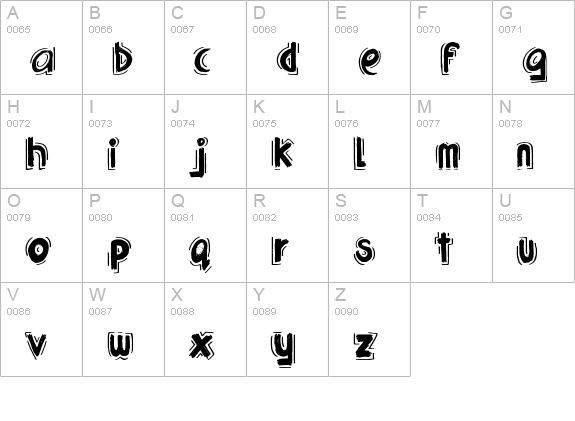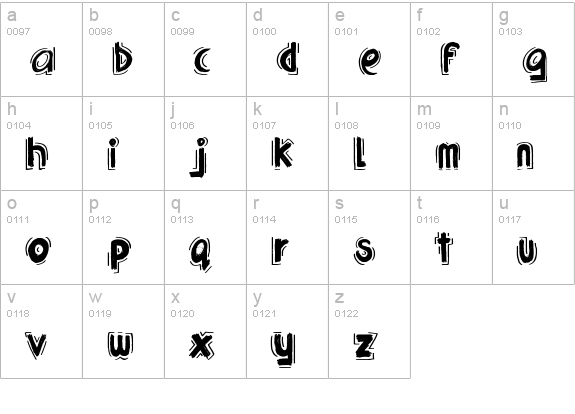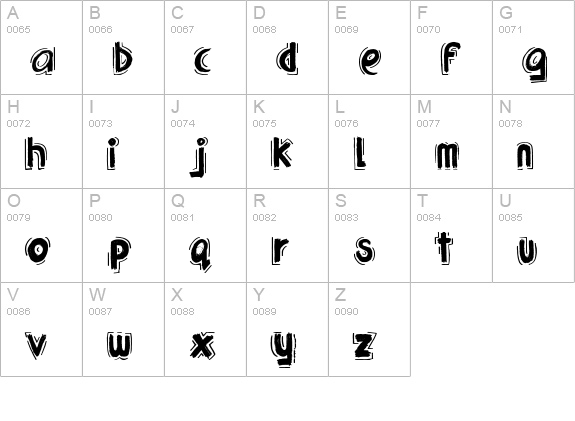
Introducing Trash Talk, a bold and edgy font that embodies the spirit of rebellion and urban culture. With its rugged and distorted letterforms, this font is perfect for adding a raw and gritty look to your designs. Whether you're creating posters for a punk rock concert or designing a streetwear brand logo, Trash Talk will bring an unapologetic attitude to your typographic compositions. But what sets Trash Talk apart from the rest is not just its unique style, but also the fact that it is available for free. Yes, you read that right – Trash Talk can be freely downloaded at FontsMarket.com. We believe that great design should be accessible to everyone, and by offering Trash Talk as a free font, we are empowering designers, artists, and enthusiasts around the world to unleash their creativity without any limitations. This font is not for the faint-hearted. It is for those who dare to push boundaries and challenge the status quo. Trash Talk's rough and grungy aesthetic captures the rebellious spirit of street art and underground subcultures. Its jagged edges and distressed textures evoke a sense of authenticity and rawness, making it perfect for expressing the untamed energy of your rebellious projects. Trash Talk is highly versatile and can be used for a wide range of design purposes. From album covers to skateboard graphics, from tattoo art to bold headlines, this font will make a bold statement and leave a lasting impression. Its wide range of character variations and ligatures ensure that each letter combination feels unique and dynamic, adding an extra touch of personality to your designs. So, if you're ready to take your design game to the next level and unleash your creativity without any cost, Trash Talk is the font for you. Visit FontsMarket.com today and freely download this font to add a touch of rebellious attitude to your next project. Join the movement and let your designs speak volumes with the power of Trash Talk.